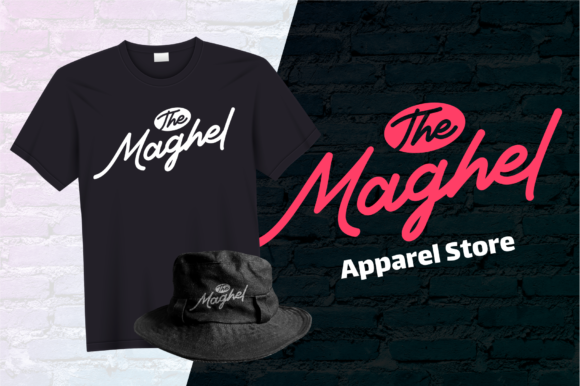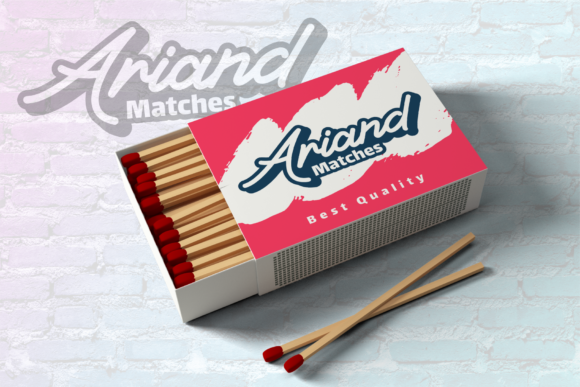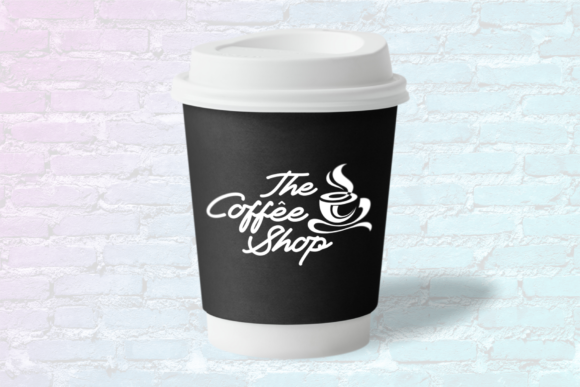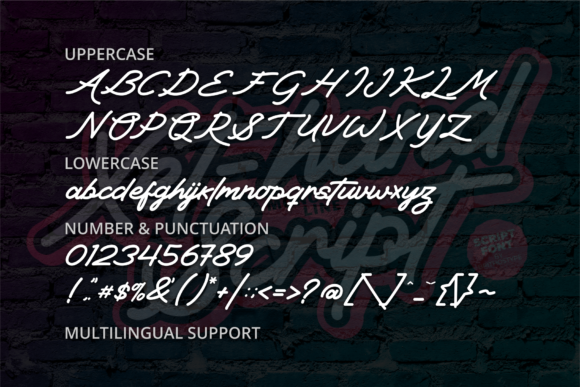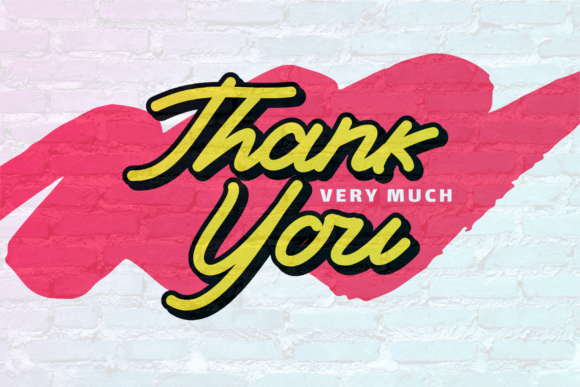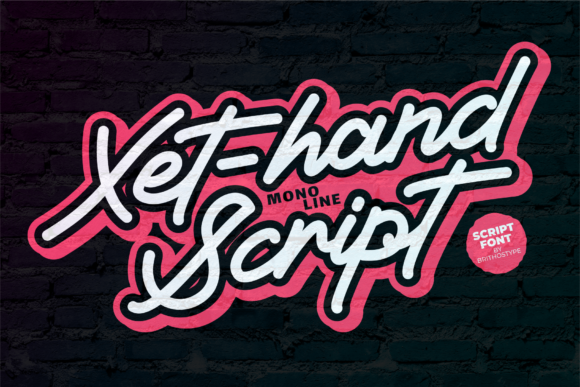
Xet-hand Script Font
About Xet-hand Script Font
Xet-hand Script is an elegant script font. It features a unique style that will look amazing in wedding invitations, branding, social media posts and much more!